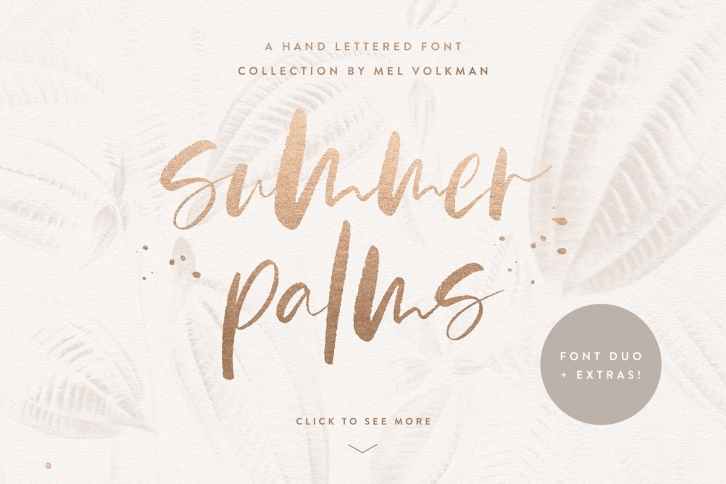
Summer Palms is a dreamy hand lettered font collection featuring a stunning brush script, an eccentric sans companion, gorgeous textures, and an infinite amount of styling opportunities! The SP Font Collection was created to look as close to authentic hand lettering as possible. Not only will you find an array of stylized ligatures/alternates, but you’ll have so much fun mixing and matching the upper and lowercase letters to give each word a truly personalized feel.
Summer Palms pairs beautifully with many fonts and can be used in a variety of different scenarios! Perfect for many design projects such as logo design, branding, blog graphics, stylizing quotes, wedding stationery, art prints, collateral design, packaging, social media, and so on. I’ve truly enjoyed the process of creating Summer Palms and hope that it will bring some magic into your projects!
①Summer Palms Brush Script Font (otf, ttf) - A hand lettered brush script font containing upper & lowercase characters, numbers, symbols, punctuation, and 32 styled ligatures/alternate letters.
â‘ Summer Palms Sans Font (otf, ttf)Â - An eccentric, hand lettered sans companion containing uppercase characters, numerals, symbols, and punctuation.
DESIGNER NOTE
With nearly 10 years of design experience and a large collection (thousands) of fonts, I can honestly say that this font has made my font dreams come true! It’s hands down one of the most fun, versatile hand lettered fonts that I have worked with to date. I’ve truly enjoyed the process of creating Summer Palms and hope that it will bring some magic into your projects!